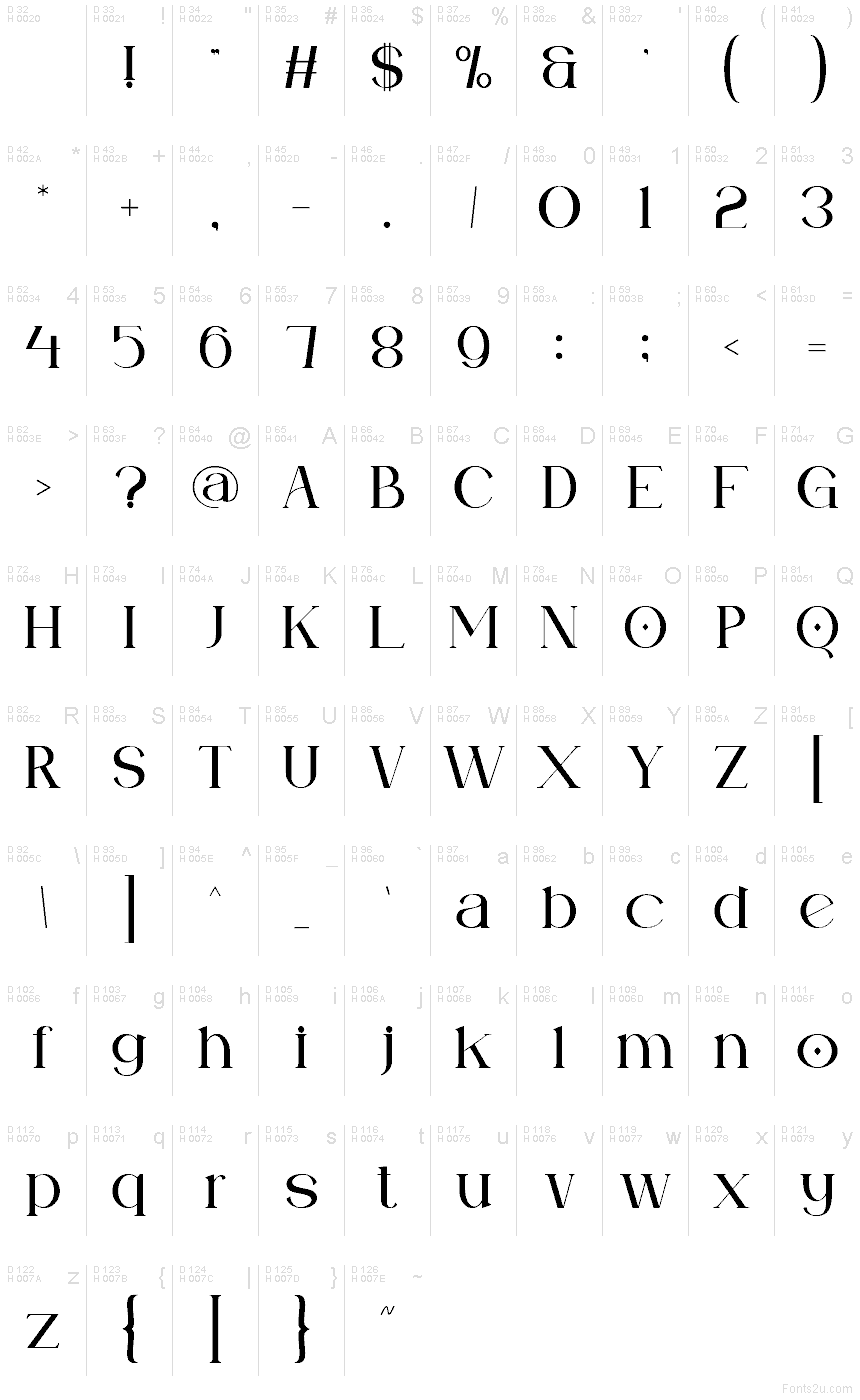
MUENOO
Muenoo font, designed by Gilang Ternadho, is a sleek and modern geometric serif with a minimalist aesthetic and decorative accents. Its high-fashion appeal suits contemporary design projects seeking elegance and refinement. Muenoo has a wide set of features such as swashes, alternate characters, ligatures, contextual alternates, numerals plus punctuation.